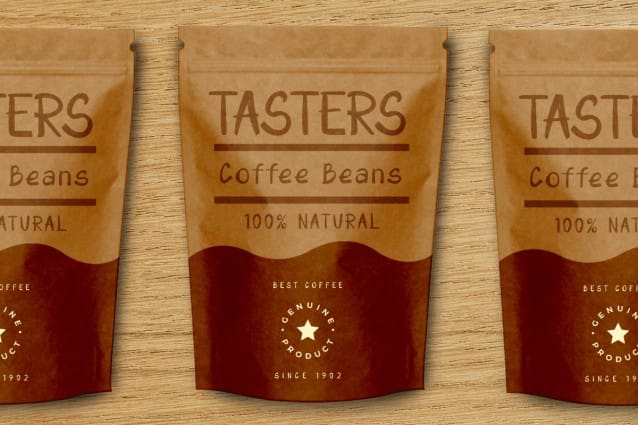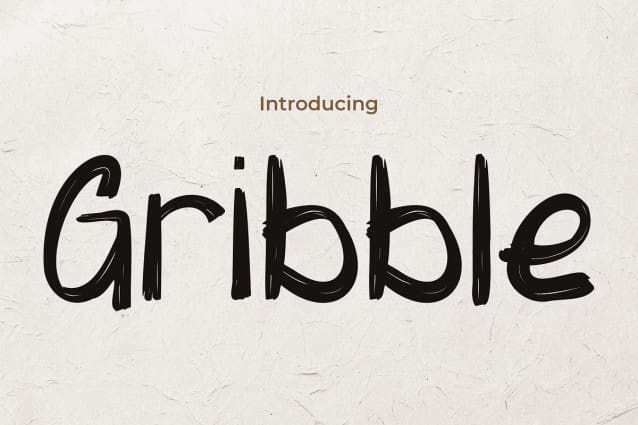
Gribble Brush Font
Gribble Brush Font, a captivating display font designed to evoke the spirit of exploration and discovery. Inspired by the allure of epic adventures, Gribble infuses your designs with a sense of boldness and excitement. Each letter in this meticulously crafted font embodies the thrill of the unknown, making it the perfect choice for dynamic headlines, adventurous branding, and daring posters.
Whether you’re crafting outdoor expedition banners, travel agency advertisements, or adventure-themed event invitations, Gribble Brush adds an element of excitement and intrigue to your projects. With its bold design and adventurous theme, Gribble beckons your audience to join in the quest for new experiences and uncharted territories. Let Gribble lead the way as you venture into the world of typography with courage and curiosity.